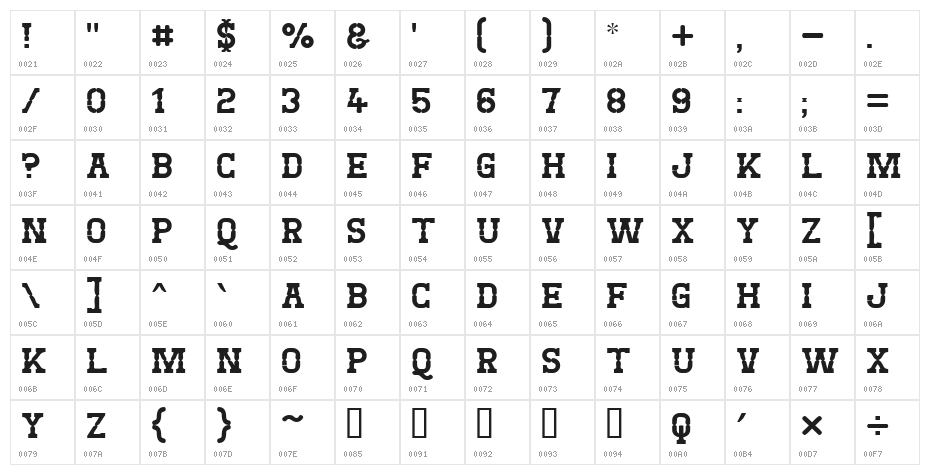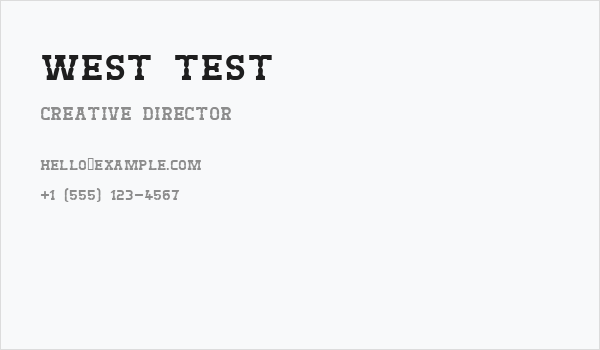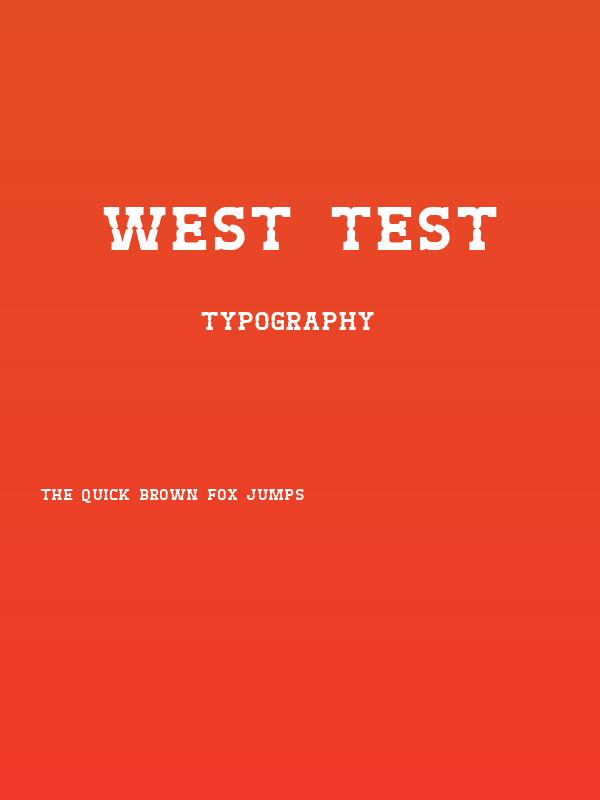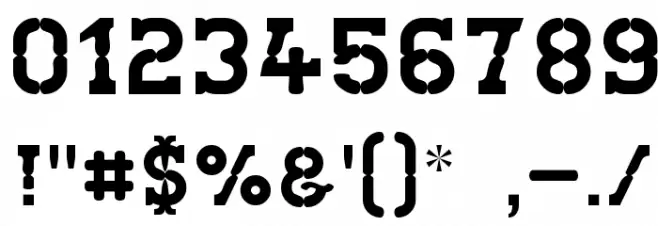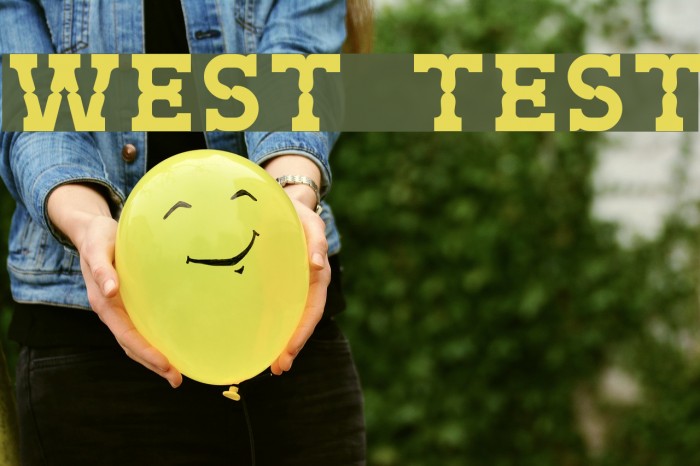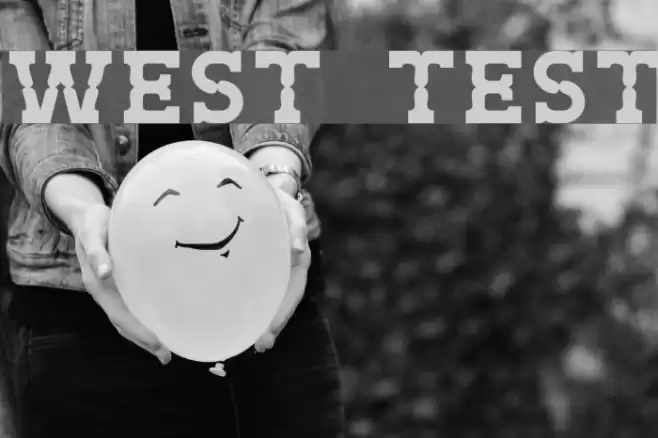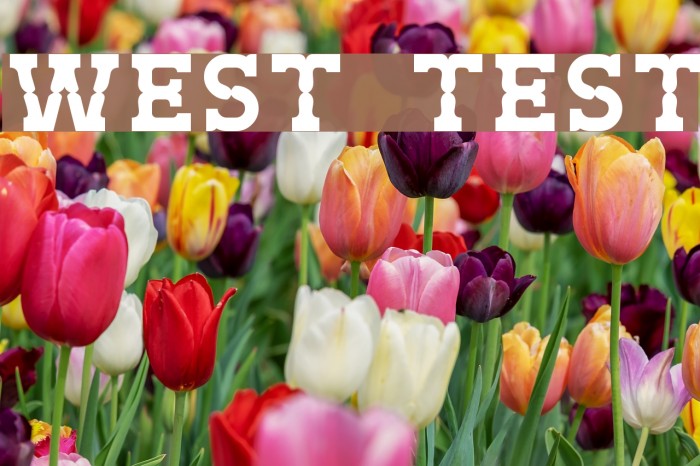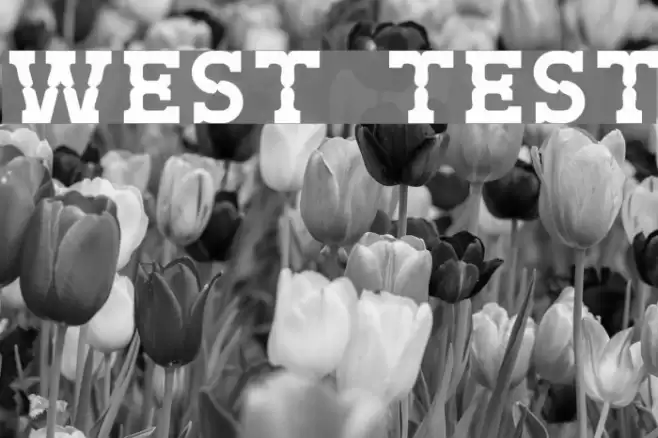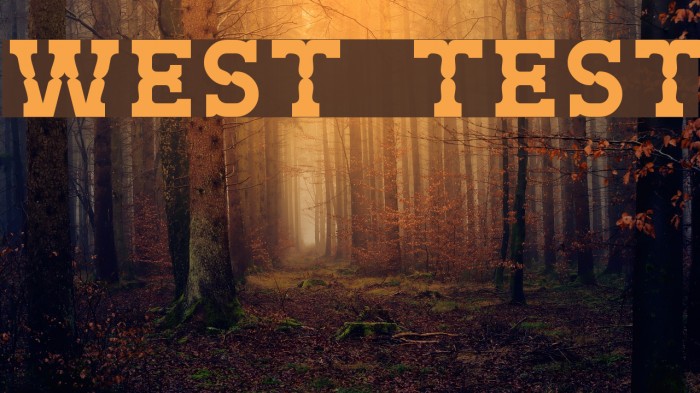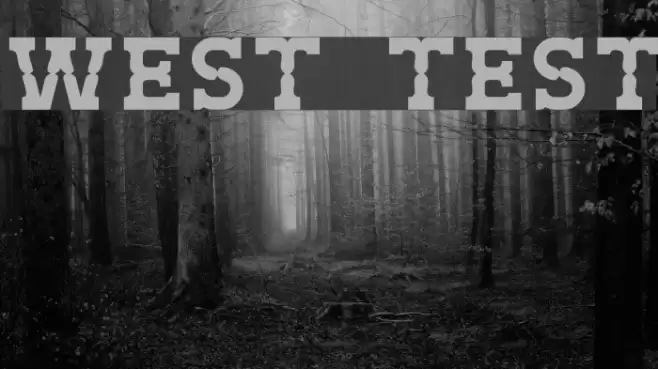
West Test Font
West Test Description
This font features a bold, slab serif style with strong, block-like serifs that give it a robust and commanding presence. The characters are uniformly wide, with a consistent weight that adds to its bold appearance. The design is reminiscent of classic Western typography, often seen in vintage posters and signage. Each letter is crafted with a sense of solidity, making it ideal for impactful headlines and titles. The numerals and special characters maintain the same boldness and style, ensuring a cohesive look across all text elements.
| Overall Style | Vintage |
| Proposed Projects | Ideal for vintage posters, signage, branding, and any project requiring a strong, impactful typeface. |